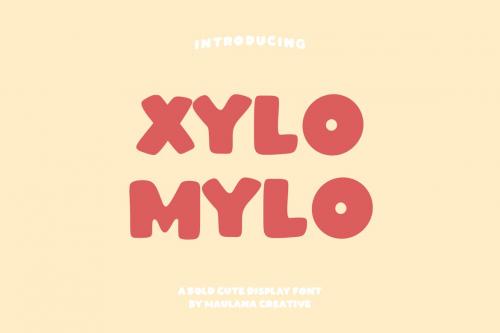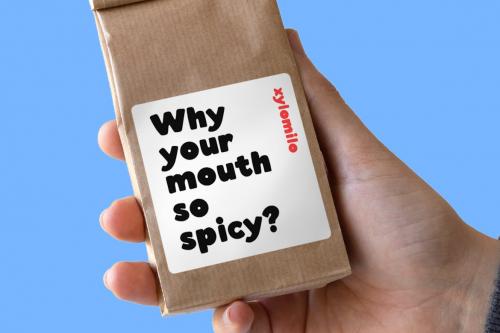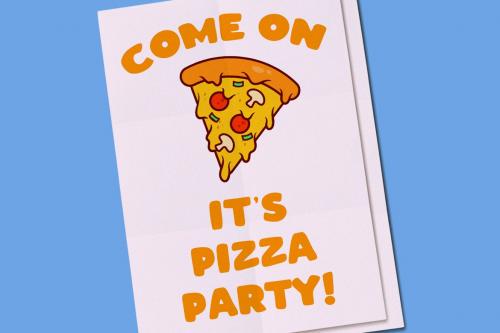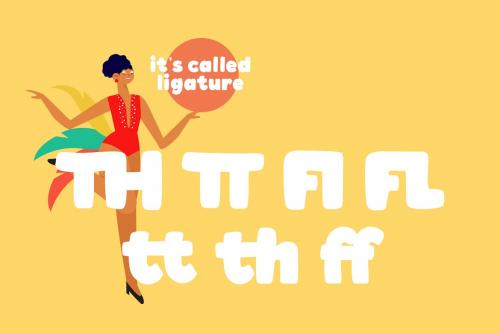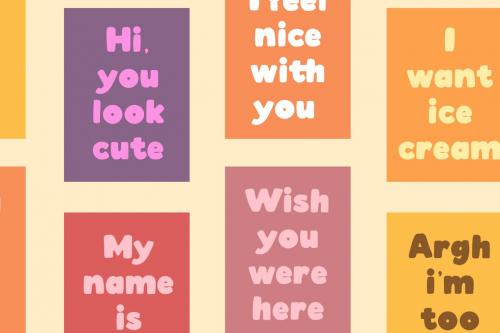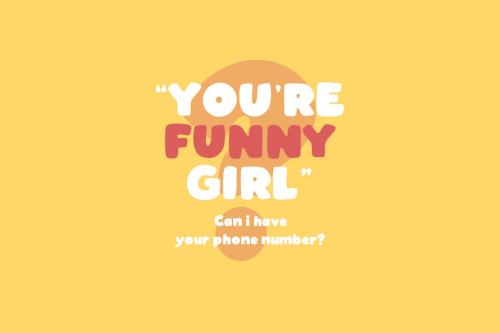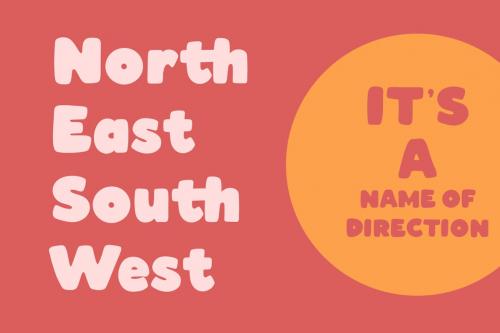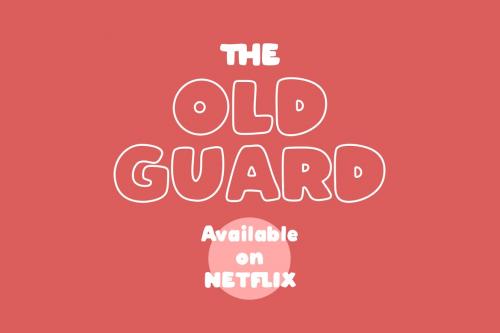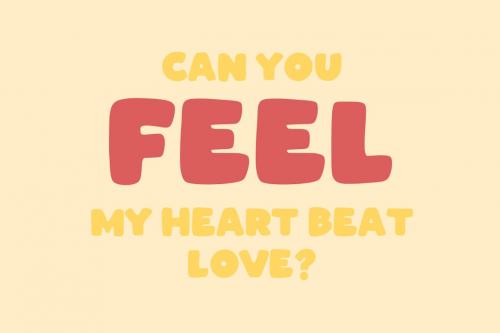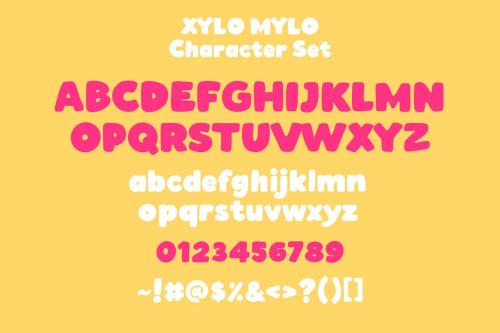
甲壳虫木纤维Bold Display字体
Xylomylo Bold Display Font
Xylomylo is a Chunky Bold Display font casual and clean stoke font includes opentype features Ligatures inspired by cartoon films retro books and retro artworks. It support multilingual more than 100+ language. This font is suitable for logo design, Movie Titles , Books Titles and any awesome project you create. Make stunning work with Xylomylo font.